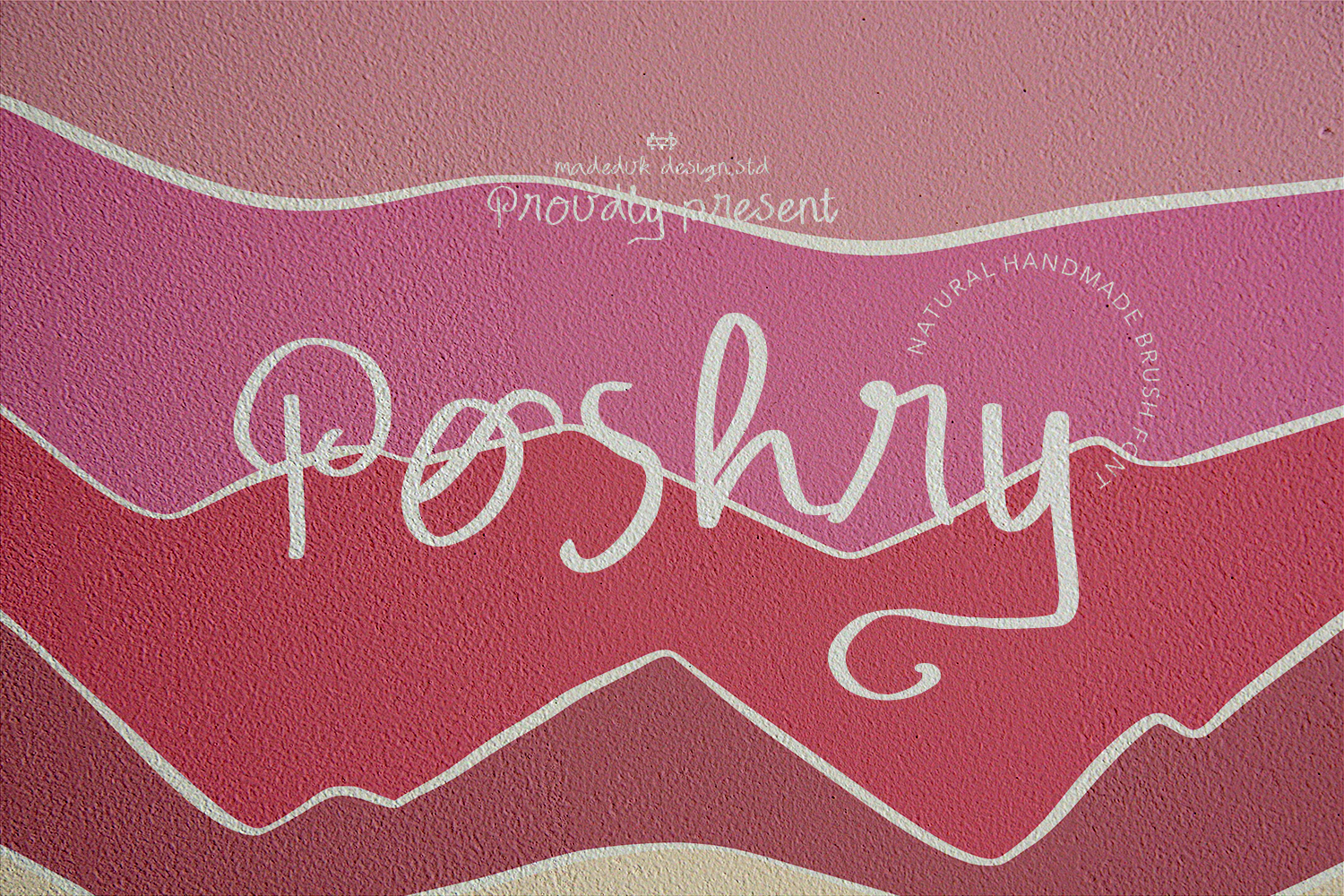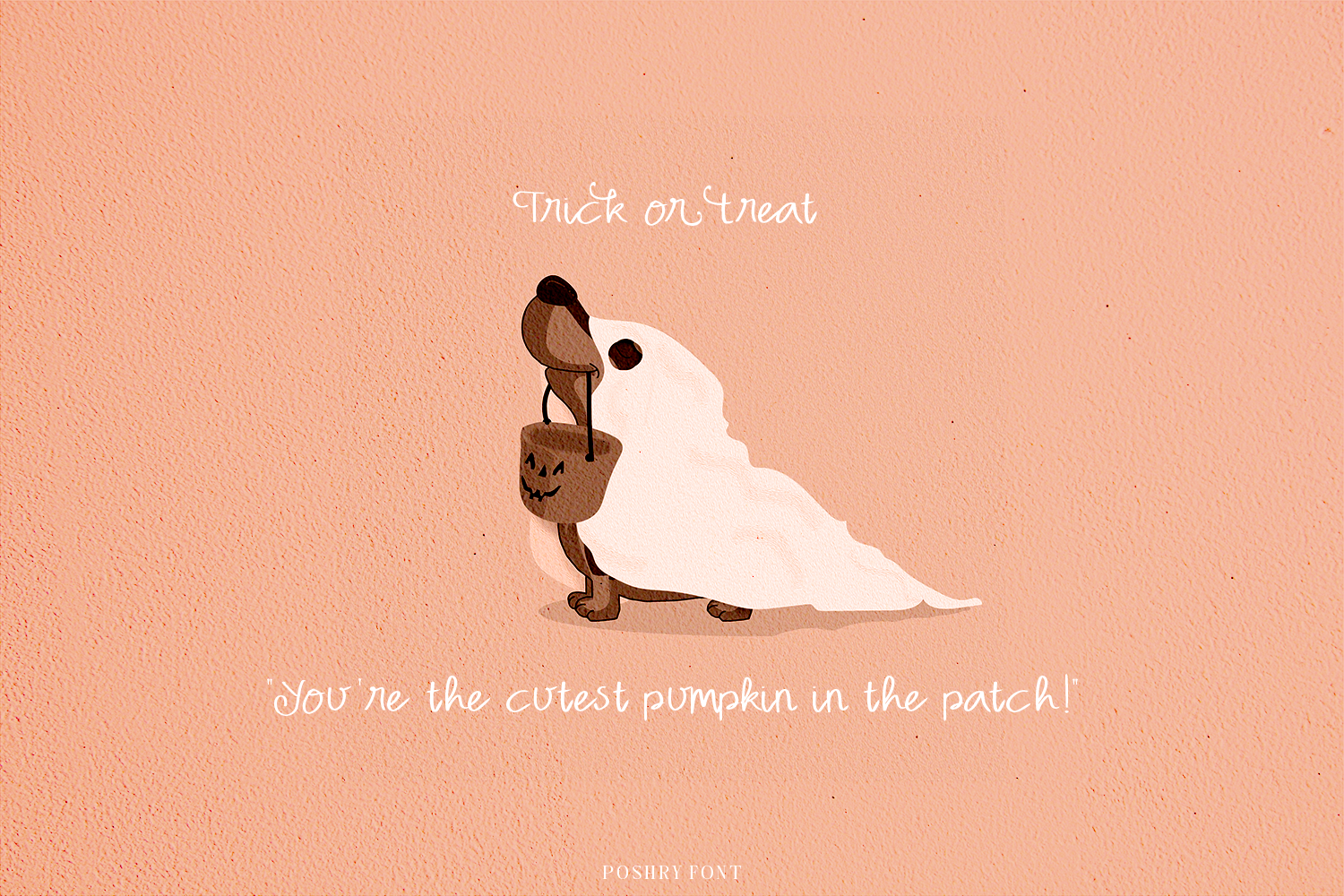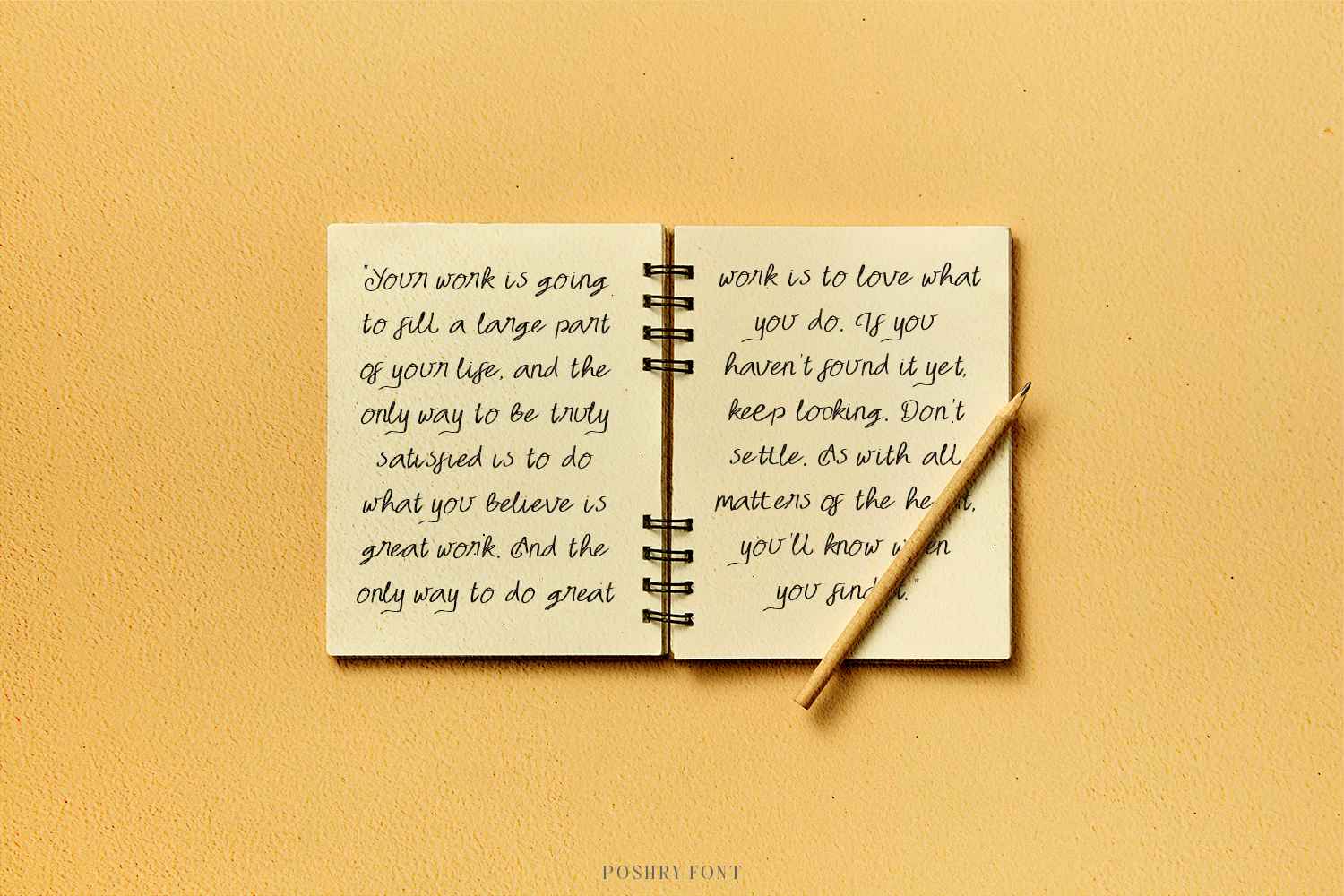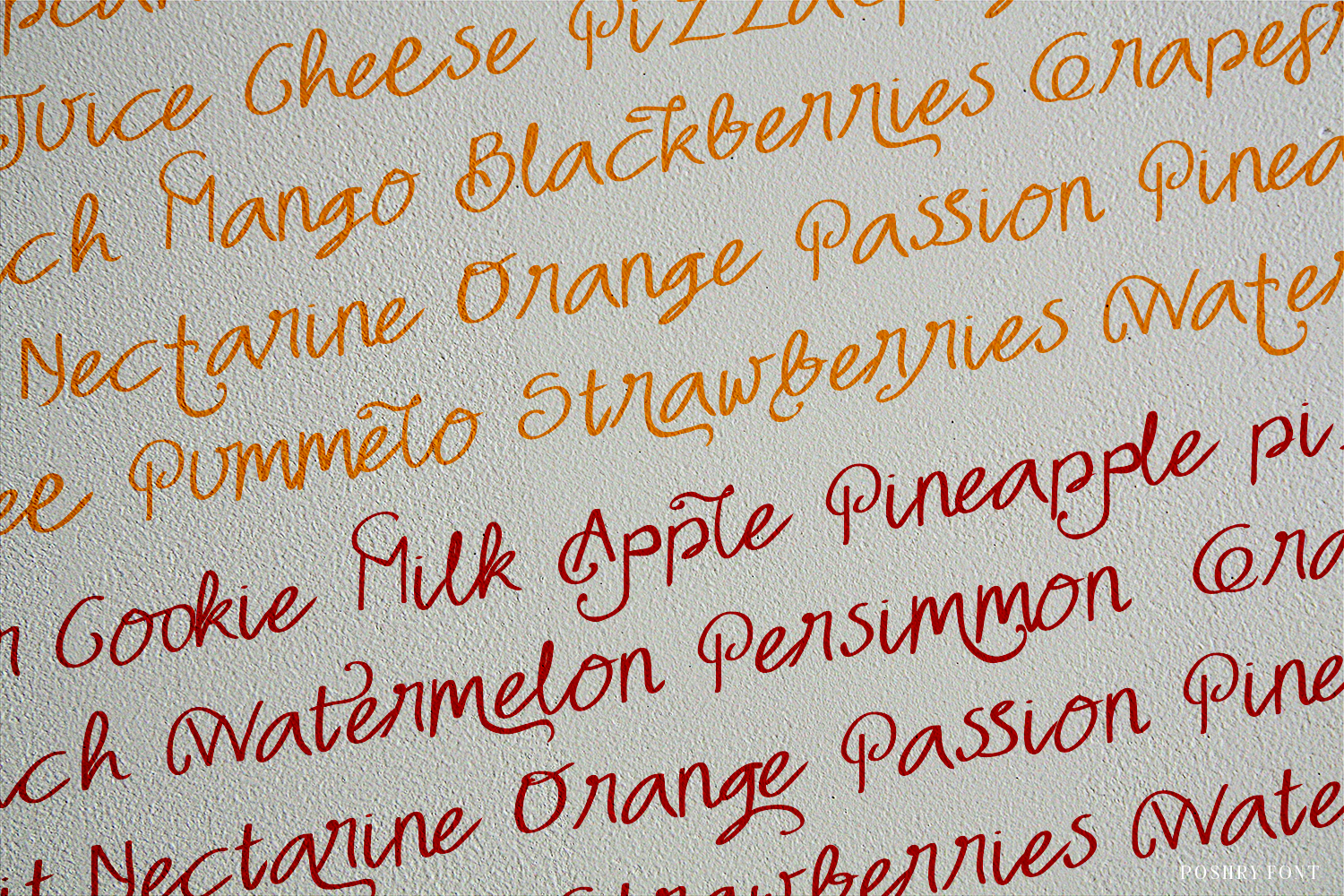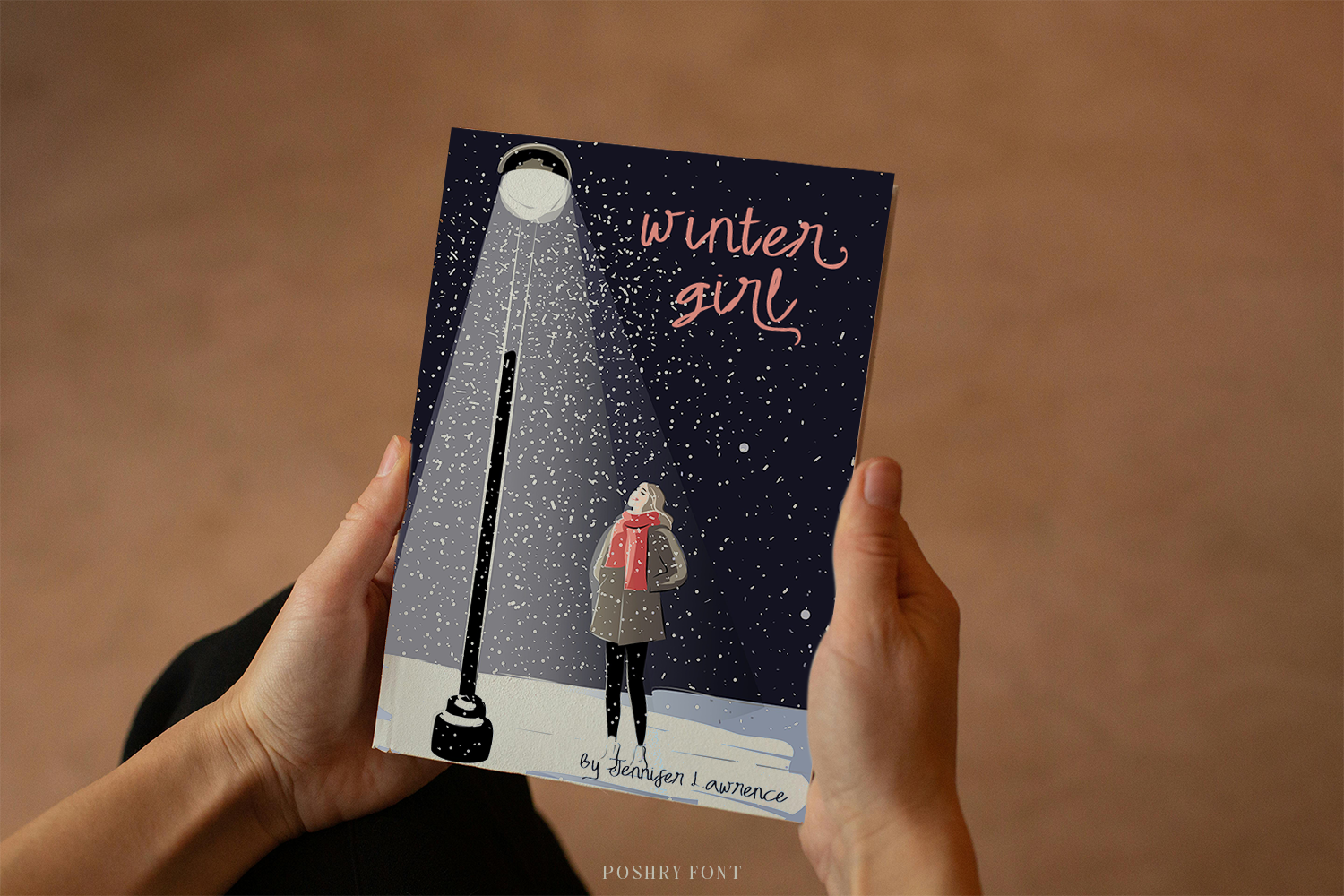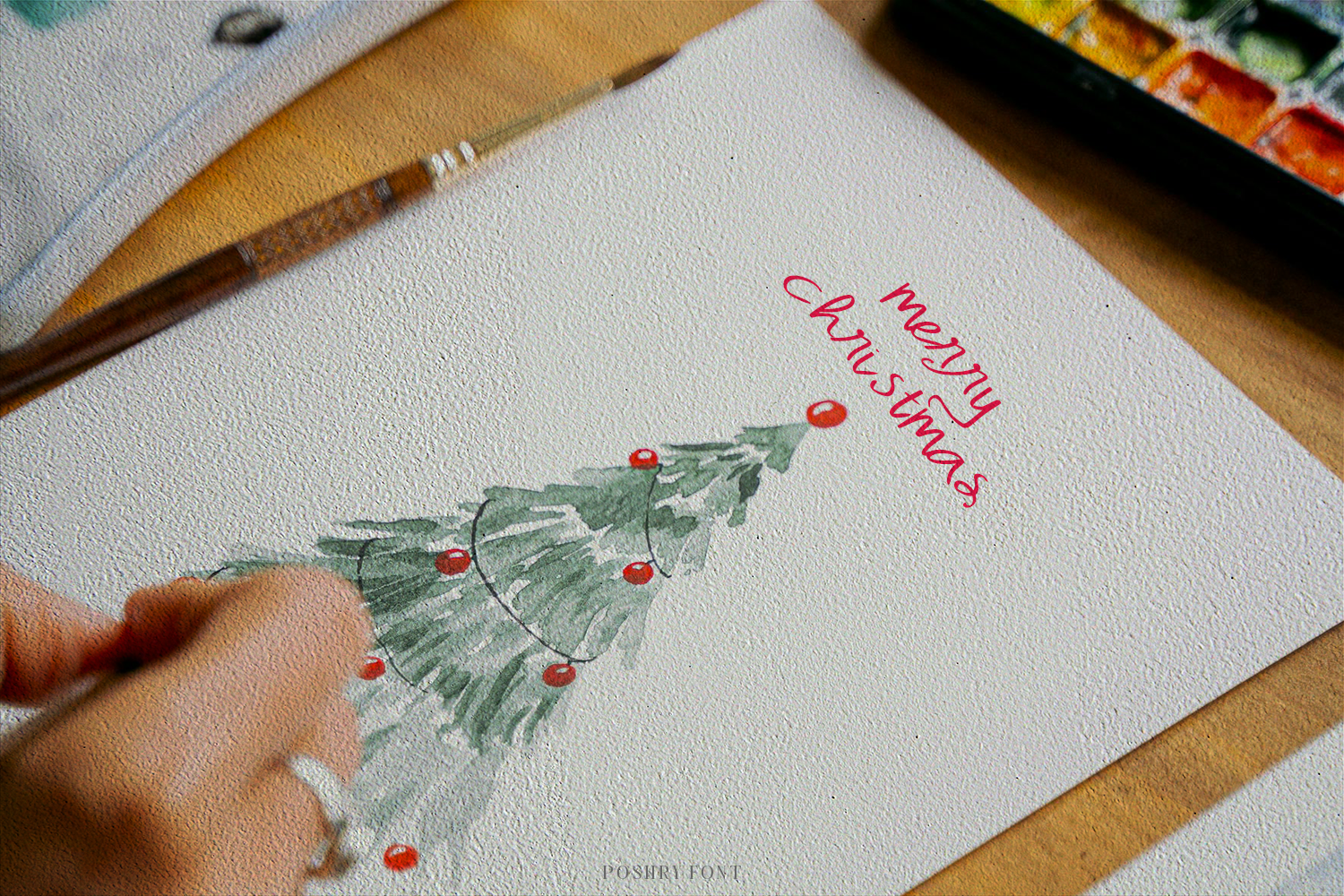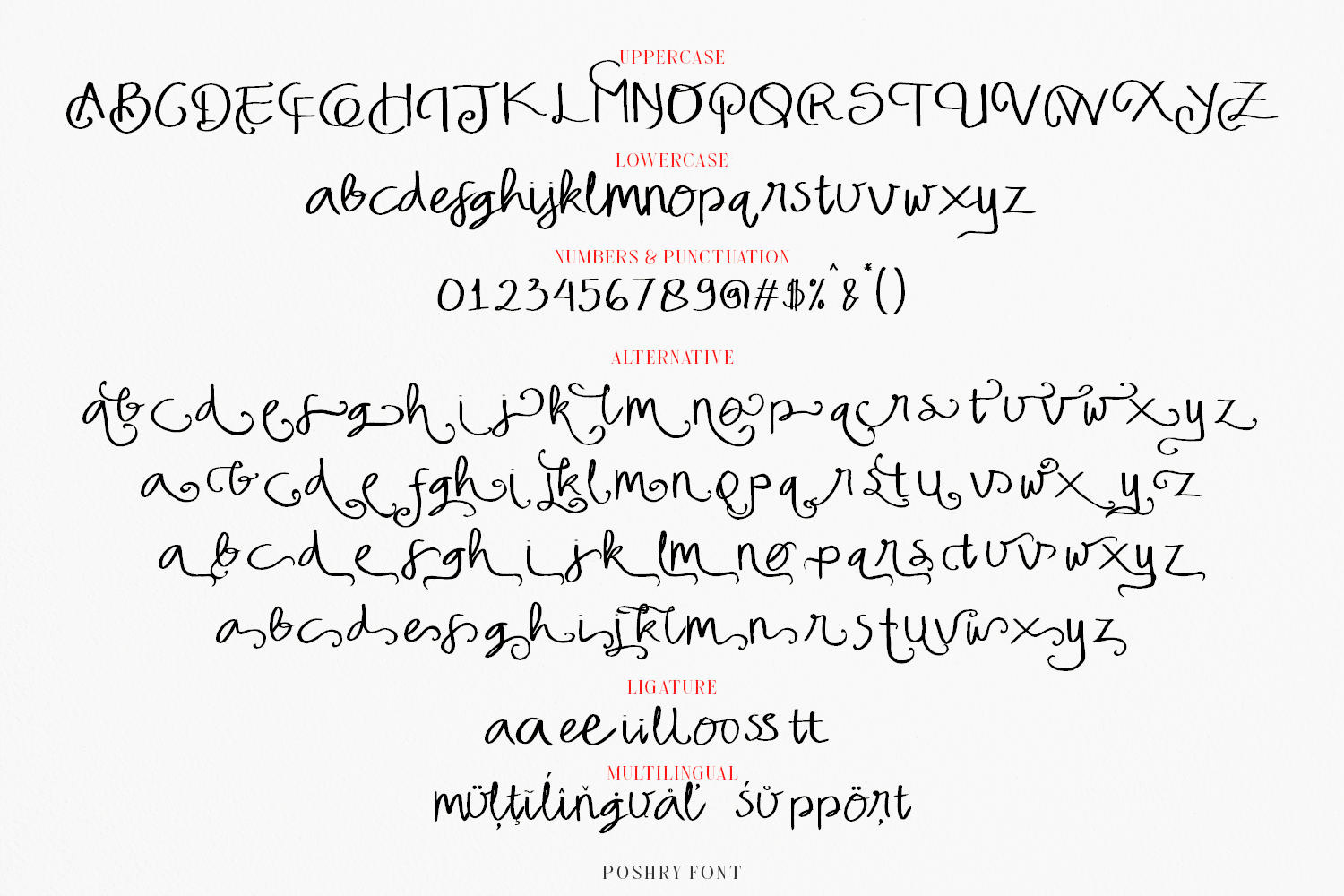
Poshry is a realistic handwritten font to give an incredible impression for all your project design come with ligatures and Alternative to make everything look realistic handmade handwritten. This font perfect for poster design, book covers, merchandise, fashion campaigns, newsletters, branding, advertising, magazines, greeting cards, album covers, and quote designs and more.
- Multilingual support